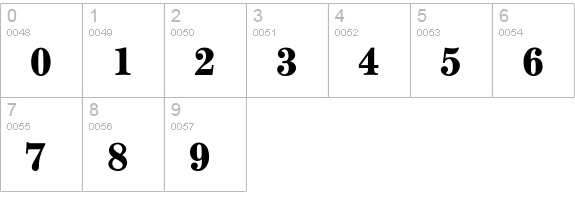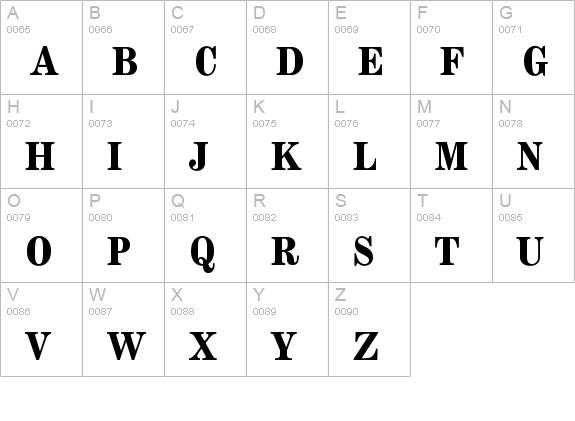
Modern TM Font Details
Modern TM font is a sleek and contemporary typeface that exudes sophistication and style. With clean lines and a modern aesthetic, this font is perfect for a wide range of design projects, from branding to editorial design. Its versatility makes it a great choice for both digital and print applications. What sets Modern TM font apart is not only its modern look, but also the fact that it is completely free to download. Yes, that's right - you can get your hands on this fantastic font at no cost at all! Simply head over to FontsMarket.com and start using Modern TM font in your projects today. Whether you're creating a cutting-edge website, designing a sleek logo, or crafting a chic magazine layout, Modern TM font will help you achieve a polished and professional look. Don't miss out on this amazing opportunity to enhance your design work with this stylish and free font. Download Modern TM font now and elevate your design projects to the next level.